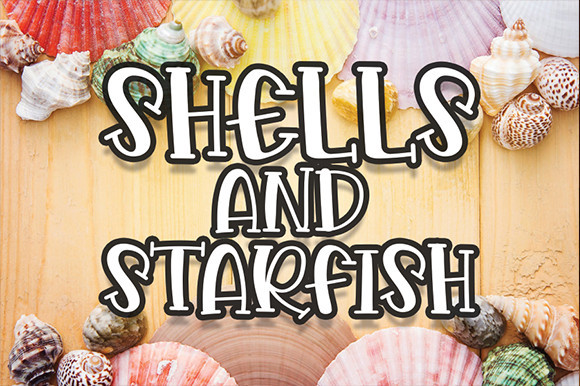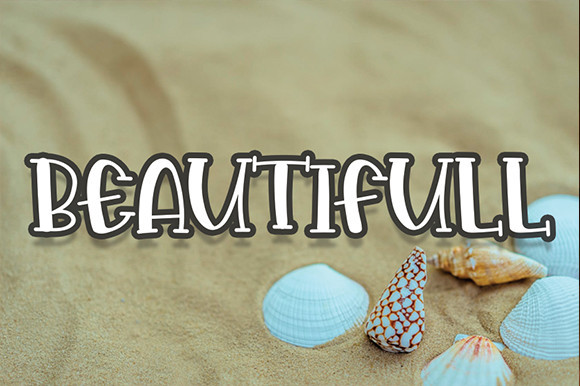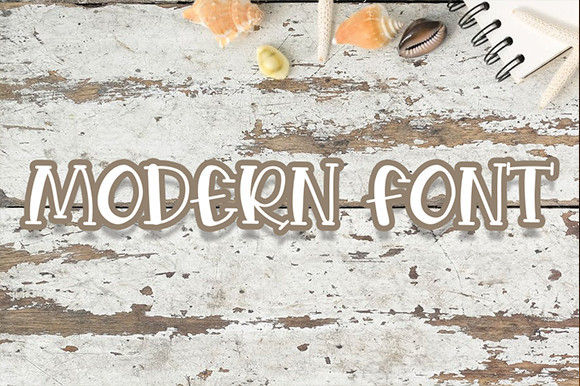
Shells and Starfish Font
Shells and Starfish is a cute and casual display font with an incredibly friendly feel. Whether you’re looking for fonts for Instagram or calligraphy scripts for DIY projects, this font will turn any creative idea into a true piece of art!